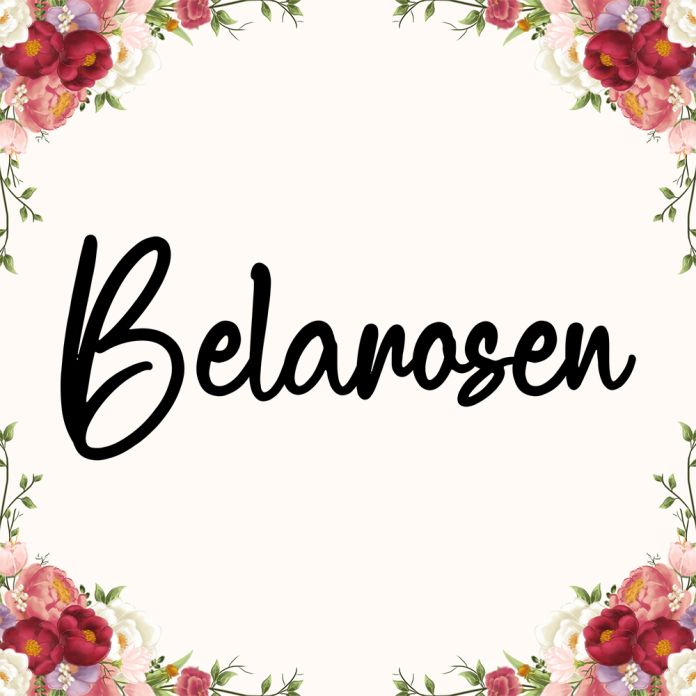
Belarosen is a handwritten font that looks friendly and easygoing. Its smooth, flowing letters give a personal, warm touch to any text, making it perfect for invitations, notes, and creative projects